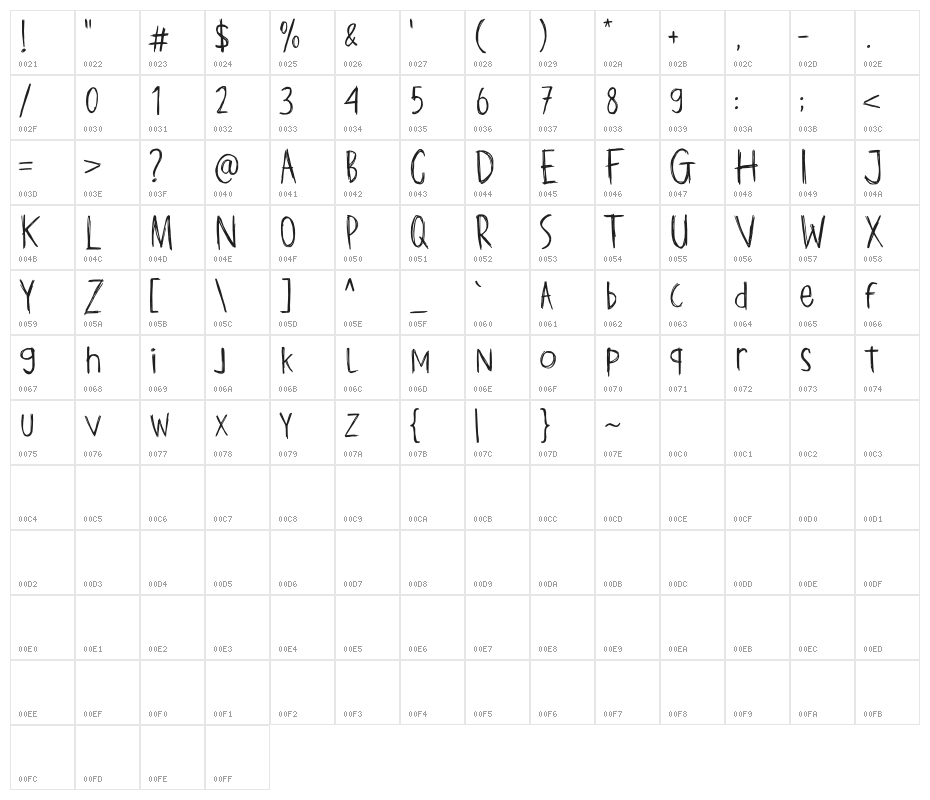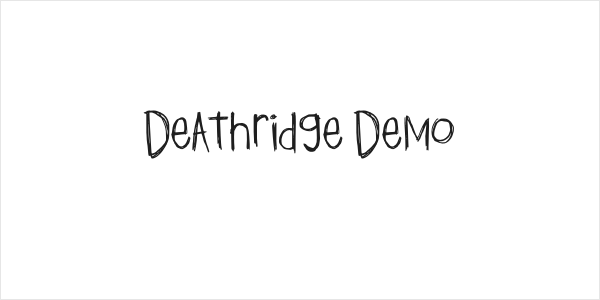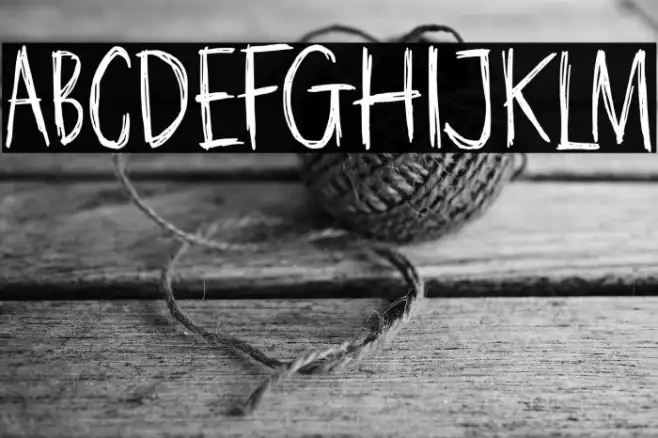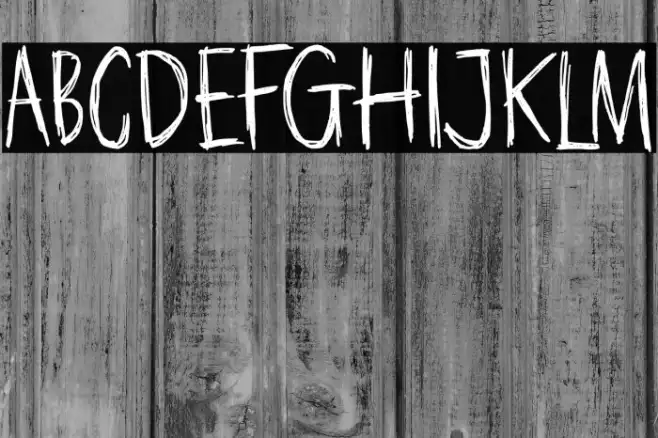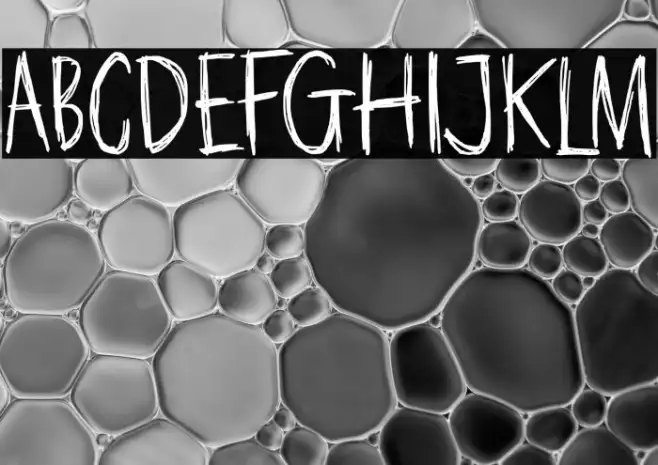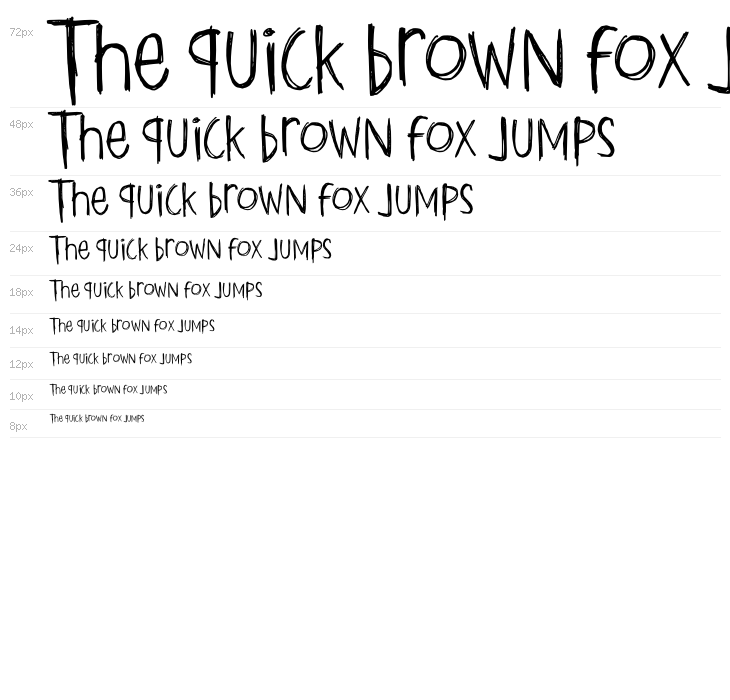
Deathridge Demo Font
Deathridge Demo Description
This font features a hand-drawn, sketch-like appearance with uneven strokes that give it a casual and artistic feel. The characters are tall and narrow, with a slightly irregular baseline that adds to its informal charm. The uppercase and lowercase letters maintain a consistent style, with elongated verticals and playful curves. Numbers and special characters follow the same aesthetic, making the font versatile for creative projects. The overall look is dynamic and expressive, suitable for designs that require a personal touch.